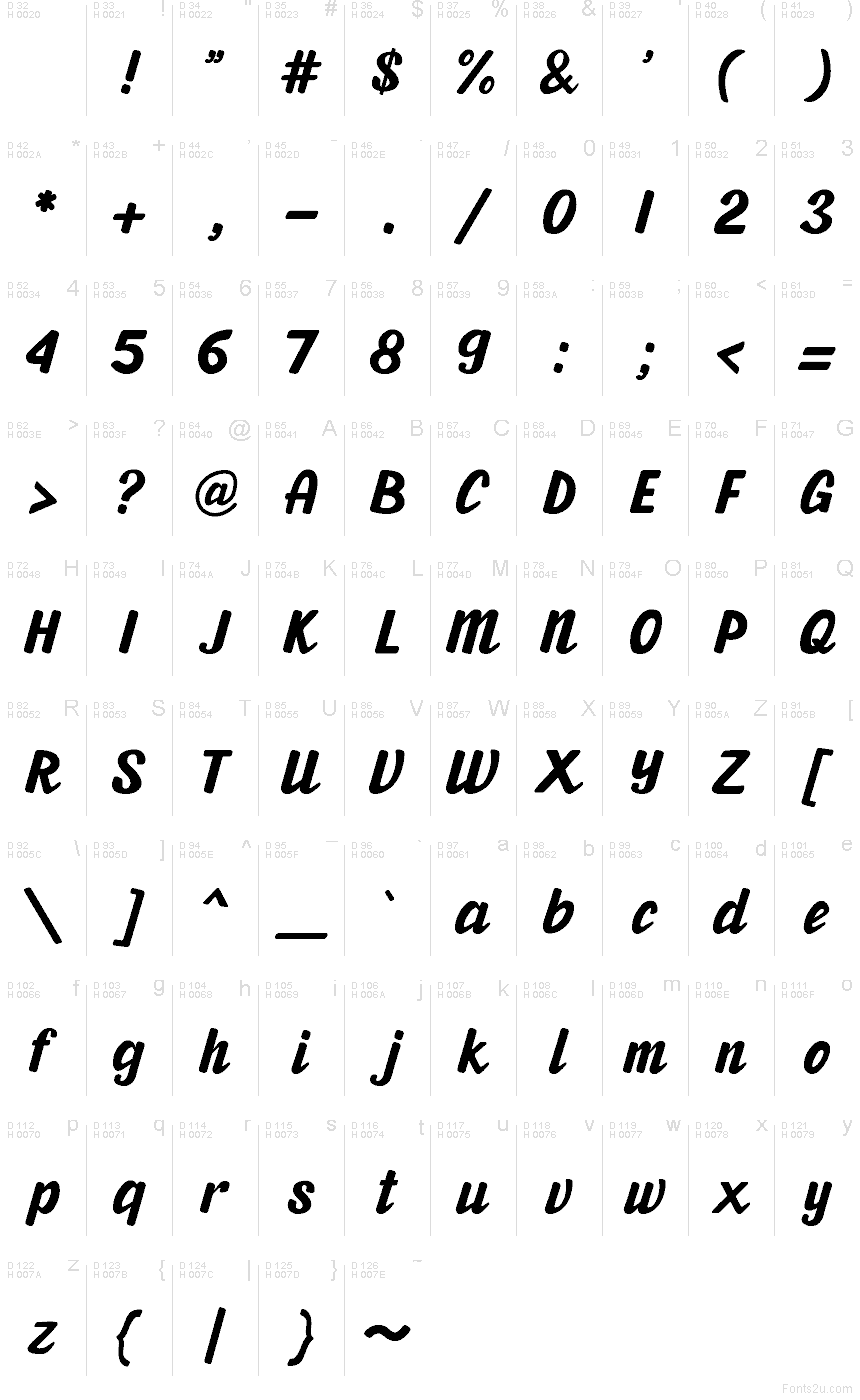
Coastfast
Coastfast font by Hujan Type is a free brush script typeface with the easy swing of quick, confident handwriting. The smooth, inky strokes link together in a relaxed rhythm, giving every word that sun-bleached, seaside-sign feeling without losing legibility. It feels bold and friendly at once, as if it were painted in one go with a loaded brush on rough wood or canvas.
Using Coastfast, your branding and layouts pick up a casual, hand-painted charm that works beautifully for wedding invitations, product packaging, logos, social media graphics, wall art, and photography watermarks. This free font really shines when you give it room to breathe in larger sizes. For a polished combo, pair Coastfast with a clean sans serif for body text so the brush lettering can handle all the personality work.